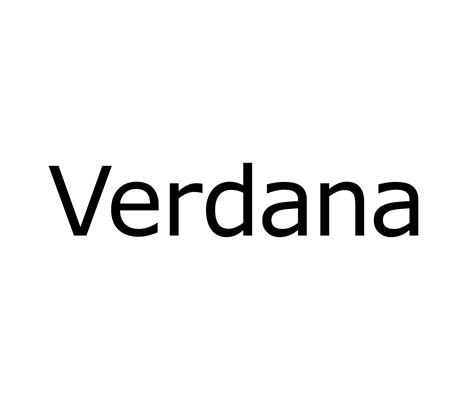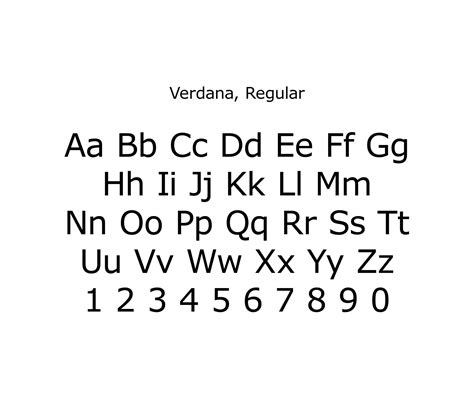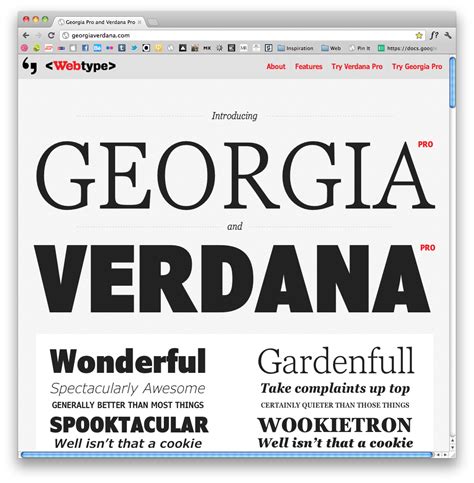
In the realm of digital typography, few typefaces have had as profound an impact as Matthew Carter Typefaces Verdana. Designed specifically for on-screen readability, Verdana has become a staple in web design and digital communication. Its clean, open forms and generous spacing make it an ideal choice for interfaces where clarity and legibility are paramount. This post delves into the history, design principles, and practical applications of Verdana, providing a comprehensive overview of its significance in the world of digital type.
History and Development of Verdana
Verdana was created by the renowned type designer Matthew Carter in 1996. At the time, the internet was rapidly expanding, and the need for typefaces that could render well on low-resolution screens became apparent. Carter, known for his work on typefaces like Bell Centennial and Georgia, was commissioned by Microsoft to design a typeface that would address the specific challenges of digital displays. The result was Verdana, a typeface that prioritized readability and clarity above all else.
Verdana's development was driven by the need to create a typeface that could be easily read on the pixelated screens of the late 1990s. Carter focused on creating large, open forms with generous spacing between letters. This design approach ensured that even on low-resolution screens, the letters would be distinct and easy to read. The name "Verdana" itself is derived from the Italian word "verde," meaning green, reflecting the typeface's origins and the lush, verdant landscapes of Italy.
Design Principles of Verdana
Verdana's design is characterized by several key principles that make it highly effective for on-screen use. These principles include:
- Large, Open Forms: Verdana's letters are designed with large, open apertures, making them easily distinguishable even at small sizes. This is particularly important for interfaces where text may be displayed at various sizes.
- Generous Spacing: The spacing between letters and words in Verdana is generous, reducing the likelihood of characters blending together. This is crucial for readability, especially on low-resolution screens.
- Clear, Distinct Shapes: Each letter in Verdana has a clear, distinct shape that is easily recognizable. This is achieved through the use of simple, unadorned forms that are free from unnecessary flourishes.
- Consistent Weight: Verdana maintains a consistent weight throughout, ensuring that all letters are equally legible. This consistency is particularly important for on-screen text, where variations in weight can be more pronounced.
These design principles work together to create a typeface that is highly readable and versatile. Verdana's clean, open forms and generous spacing make it an ideal choice for a wide range of digital applications, from websites and mobile apps to e-books and digital signage.
Applications of Verdana
Verdana's versatility and readability make it a popular choice for a wide range of digital applications. Some of the most common uses of Verdana include:
- Web Design: Verdana is often used in web design for body text, headings, and navigation menus. Its clean, open forms and generous spacing make it highly readable on screens of all sizes.
- Mobile Apps: In mobile app design, Verdana is used for interface text, buttons, and other interactive elements. Its clear, distinct shapes and consistent weight make it an ideal choice for touchscreen interfaces.
- E-books: Verdana is a popular choice for e-books, where readability is paramount. Its large, open forms and generous spacing make it easy to read on a variety of devices, from e-readers to tablets.
- Digital Signage: In digital signage, Verdana is used for displays that need to be read from a distance. Its clear, distinct shapes and consistent weight make it highly legible, even at small sizes.
In addition to these applications, Verdana is also used in a variety of other digital contexts, from email newsletters to online forums. Its versatility and readability make it a go-to choice for designers and developers who need a typeface that can be easily read on a wide range of devices and screens.
Comparing Verdana with Other Typefaces
To better understand the unique qualities of Verdana, it can be helpful to compare it with other popular typefaces. Below is a comparison of Verdana with some of its contemporaries, highlighting the strengths and weaknesses of each.
| Typeface | Designer | Year | Strengths | Weaknesses |
|---|---|---|---|---|
| Verdana | Matthew Carter | 1996 | High readability, clear shapes, generous spacing | Can appear too bold at small sizes |
| Arial | Monotype Corporation | 1982 | Versatile, widely available, clean design | Less readable at small sizes, less distinct shapes |
| Georgia | Matthew Carter | 1993 | High readability, elegant design, good for print and screen | Less suitable for very small sizes, more complex shapes |
| Helvetica | Max Miedinger and Eduard Hoffmann | 1957 | Versatile, timeless design, widely used in print and digital media | Less readable at small sizes, less distinct shapes |